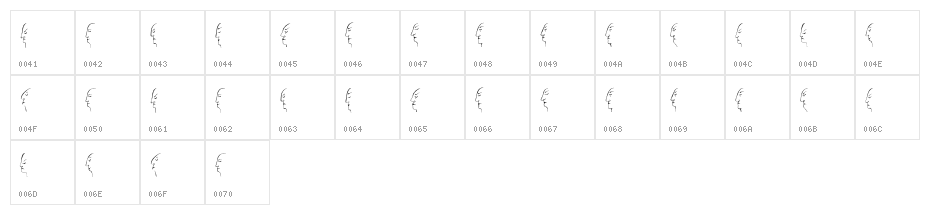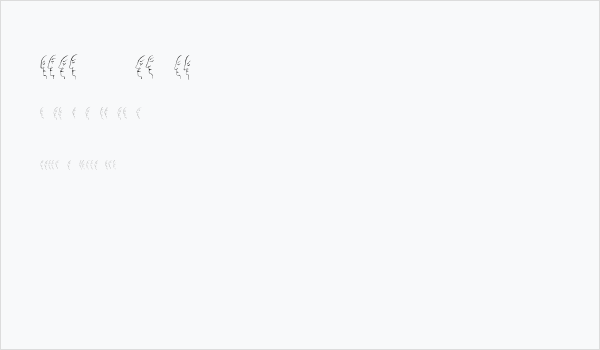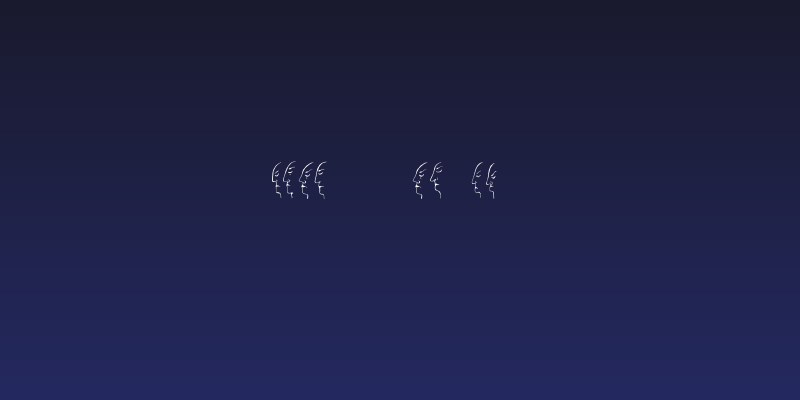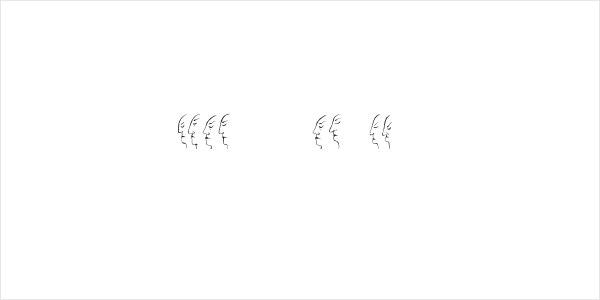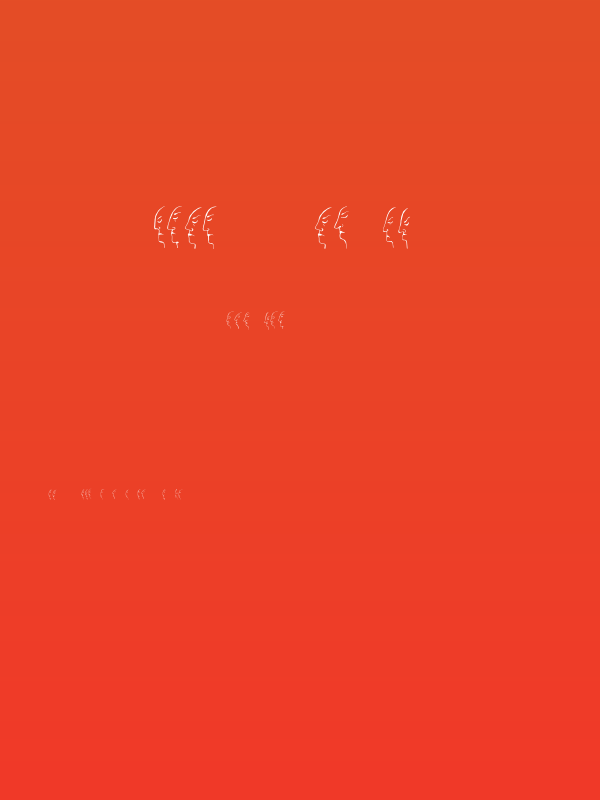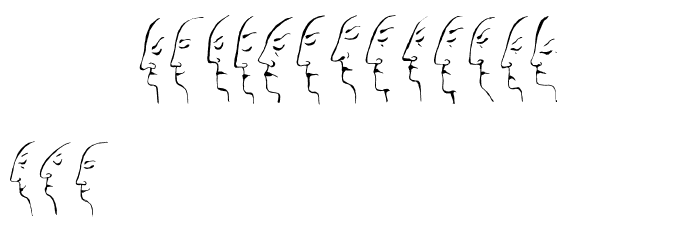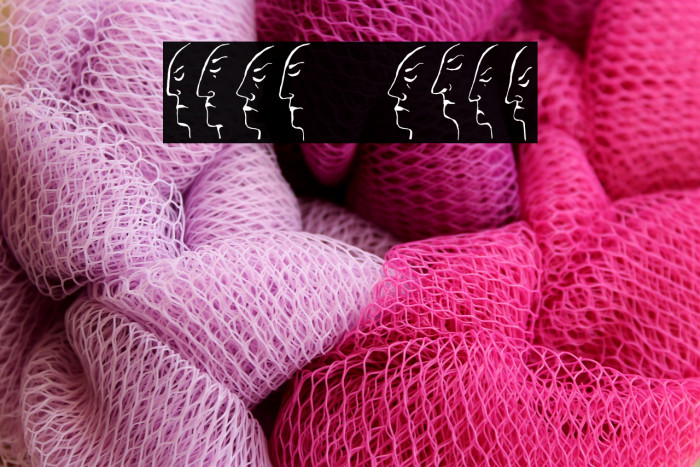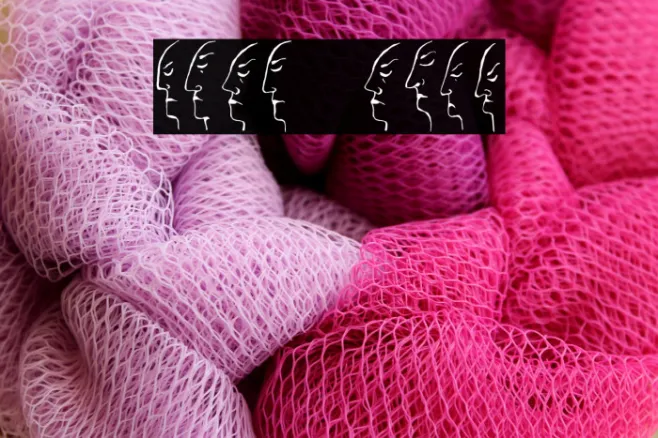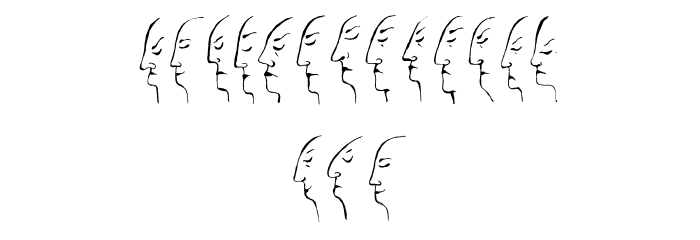
Chefs Regular Font
Chefs Regular Description
This is not a valid font. The image contains artistic representations of faces rather than alphanumeric characters or symbols typically found in a font set. Each character space is filled with a stylized profile of a face, emphasizing artistic expression over typographic functionality. The design focuses on the contours and features of the human face, creating a unique visual pattern rather than serving as a traditional typeface.
| Overall Style | Artistic, Decorative |
| Use Case | Decorative elements, Art projects |
| Proposed Projects | This design could be used in art projects, creative branding, or as decorative elements in graphic design where a human touch or artistic flair is desired. |